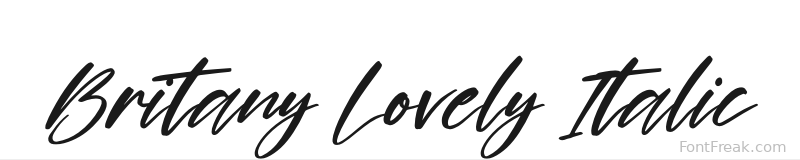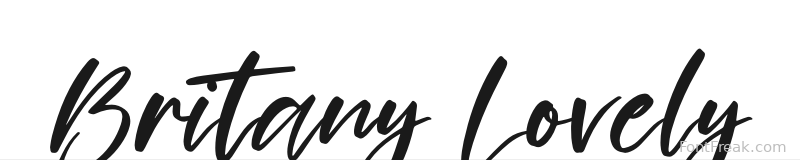
Britany Lovely Italic
Britany Lovely
Britany Lovely Italic by Perspectype Studio is a beautifully crafted script font that exudes elegance and charm. This font showcases a flowing, cursive style with graceful curves and a dynamic slant that captures attention. The strokes are varied in weight, providing a delightful contrast that enhances its visual appeal. The letters are well-spaced, ensuring readability while maintaining a sense of fluidity in the design. Decorative flourishes at the beginning and end of certain letters add a touch of sophistication, making it ideal for various creative applications.
This font is particularly suited for wedding invitations, where its romantic flair can set the perfect tone for a special day. Additionally, it works wonderfully for branding projects, especially for boutique shops or artisan businesses looking to convey a personal touch. Movie posters can also benefit from the dramatic flair of Britany Lovely Italic, adding an artistic element that grabs attention. Restaurant menus, especially for upscale dining, can utilize this font to create an inviting and stylish presentation of dishes, ensuring that the aesthetic matches the culinary experience.
The target audience for Britany Lovely Italic includes graphic designers, small business owners, and content creators who seek to elevate their projects with a touch of elegance. Whether you are designing a heartfelt card or branding your new venture, this font offers versatility and style.